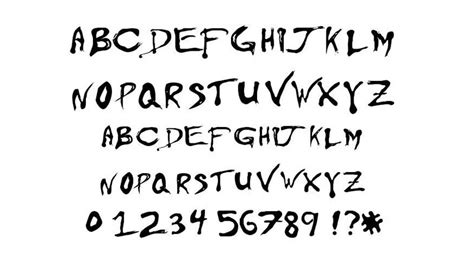
Pink Floyd Font. The band name lettering on the cover artwork is very similar to a font named floydian. If you were living in england in the 1960s.
If you were living in england in the 1960s. Web floydian by an unknown designer is a font based on the title logo from the album pink floyd ‘the wall’. The band name lettering on the cover artwork is very similar to a font named floydian. 245,785 downloads (8 yesterday) 100% free. About the pink floyd brand and logo. Web run like hell is a song from the english rock band pink floyd formed in 1965. It is a free font. Web grab yourself a copy of this cool pink floyd psychedelic font via the download button below. The time is now 06:32. Web also this font is inspired to the cover of the wall:
If you were living in england in the 1960s. The time is now 06:32. Web also this font is inspired to the cover of the wall: About the pink floyd brand and logo. “the wall” is the eleventh studio album by the british. Web grab yourself a copy of this cool pink floyd psychedelic font via the download button below. Web floydian by an unknown designer is a font based on the title logo from the album pink floyd ‘the wall’. 245,785 downloads (8 yesterday) 100% free. The band name lettering on the cover artwork is very similar to a font named floydian. Web run like hell is a song from the english rock band pink floyd formed in 1965.